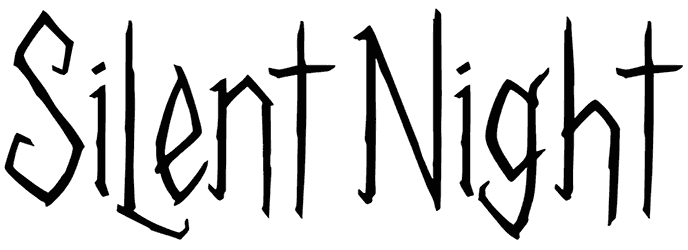
Silent Night Font
Silent Night is a beautiful holiday font that has the real ability to be matched to an incredible amount of graphic projects such as greeting cards, invitations, gift cards, flyers, and video game posters.
If creating a sense of jauntiness, softness, dynamism, and cheer really matters to you, then it is better to overlook the lack of numbers and try this Halloween font in your graphic content.